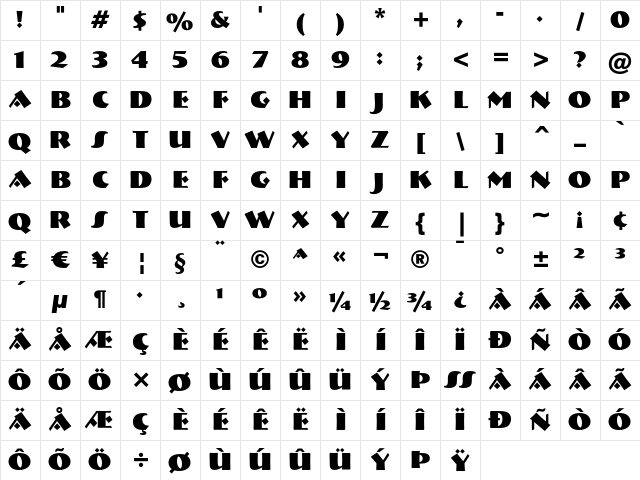
Bremen Black
Bremen Family
Bremen Black
Complete Bremen Black glyph index. Displaying only characters natively supported by Bremen Black font.
Design Context for Bremen
Bremen is a composed and adaptable typeface that performs quietly and consistently across a wide range of design contexts.